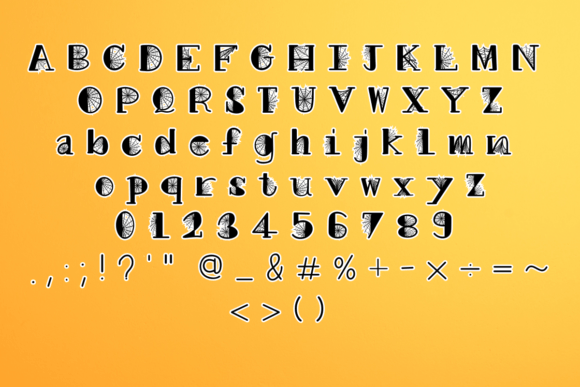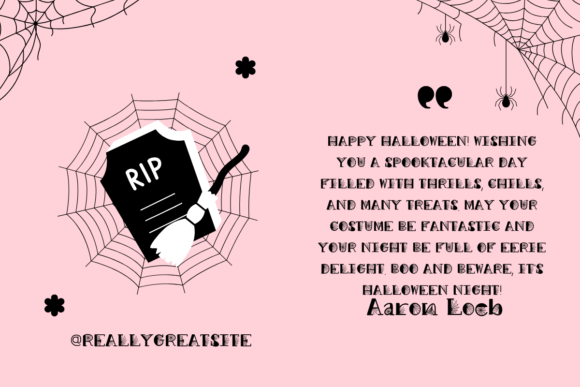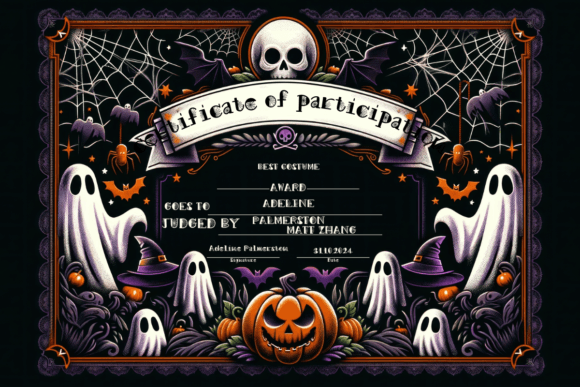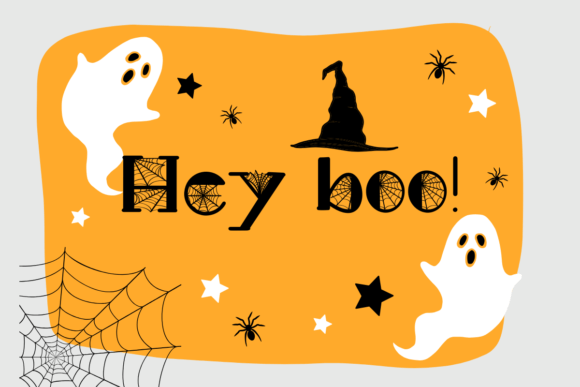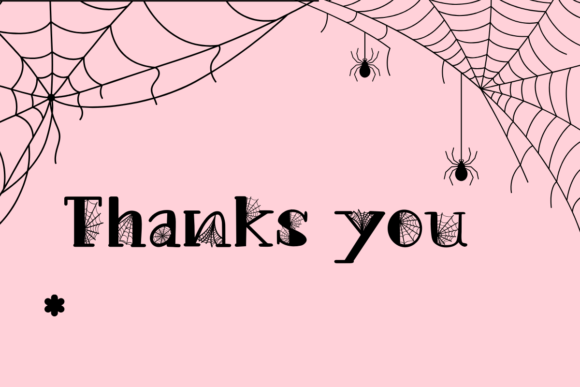
Happy Halloween Font: A Spook-tacular Addition to Your Design Collection
Are you looking for a unique and creative way to add some spooky fun to your designs this Halloween season? Look no further than the Happy Halloween font! This incredibly unique Halloween decorative font is masterfully designed to become a true favorite among designers and crafters alike. With its playful and festive vibe, Happy Halloween has the potential to bring each of your creative ideas to the highest level!
What Makes Happy Halloween Font So Special?
The Happy Halloween font is a one-of-a-kind design that is sure to make your Halloween-themed projects stand out from the crowd. Its unique and creative lettering style is perfect for adding a touch of spooky whimsy to your designs, whether you’re working on a DIY craft project, a Halloween party invitation, or a seasonal marketing campaign. The font’s playful and festive vibe is sure to delight both kids and adults alike, making it a great addition to any design collection.
Features of Happy Halloween Font
The Happy Halloween font comes with a range of features that make it a versatile and user-friendly design tool. Some of its key features include:
- Unique and creative lettering style: The Happy Halloween font features a one-of-a-kind lettering style that is sure to add a touch of spooky fun to your designs.
- Playful and festive vibe: The font’s playful and festive vibe makes it perfect for Halloween-themed projects and designs.
Uses for Happy Halloween Font
The Happy Halloween font is a versatile design tool that can be used for a wide range of projects and designs. Some of its most popular uses include:
- Halloween party invitations: The Happy Halloween font is perfect for creating spooky and fun party invitations that are sure to delight your guests.
- DIY craft projects: The font is a great addition to any DIY craft project, from Halloween-themed signs and banners to decorations and gift tags.
- Seasonal marketing campaigns: The Happy Halloween font is a great way to add a touch of spooky fun to your seasonal marketing campaigns, from social media graphics to email newsletters.
- Halloween-themed social media graphics: The font is perfect for creating spooky and fun social media graphics that are sure to delight your followers.
Tips for Using Happy Halloween Font
Here are a few tips for getting the most out of the Happy Halloween font:
- Experiment with different colors and textures: The Happy Halloween font looks great in a range of colors and textures, so don’t be afraid to experiment and find the perfect look for your design.
- Pair it with other Halloween-themed designs: The Happy Halloween font pairs perfectly with other Halloween-themed designs, such as spooky graphics and illustrations.
- Use it to add a touch of whimsy: The Happy Halloween font is perfect for adding a touch of whimsy and fun to your designs, so don’t be afraid to use it to add some personality to your projects.
The Happy Halloween font is a unique and creative design tool that is sure to add a touch of spooky fun to your designs this Halloween season. With its playful and festive vibe, easy-to-use design, and compatibility with a range of design software, it’s the perfect addition to any design collection. Whether you’re a designer, crafter, or simply someone who loves Halloween, the Happy Halloween font is sure to become a true favorite. So why wait? Download the Happy Halloween font today and start creating your own spooky and fun designs!